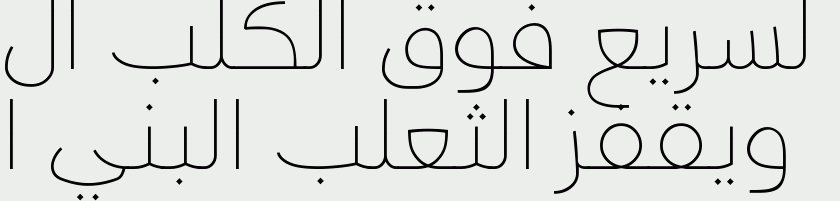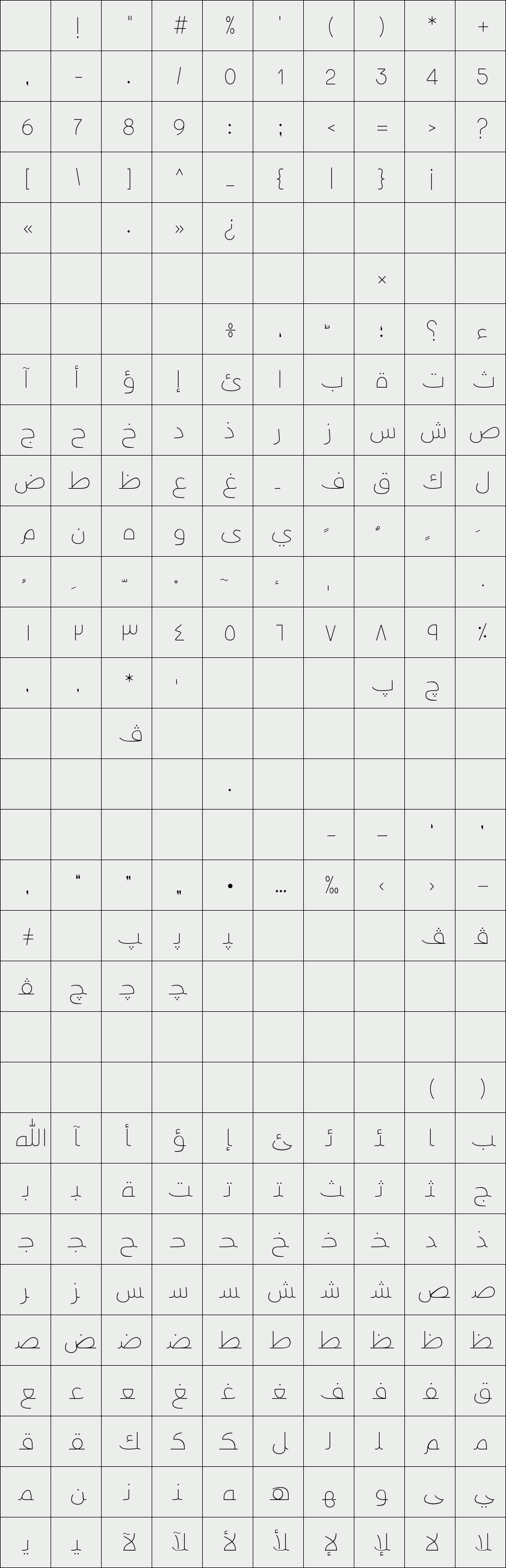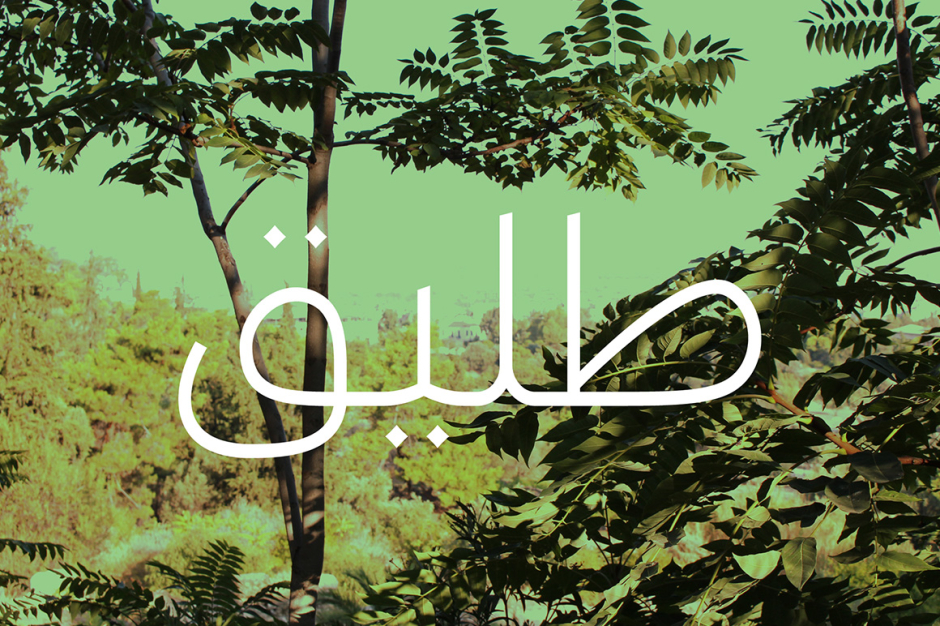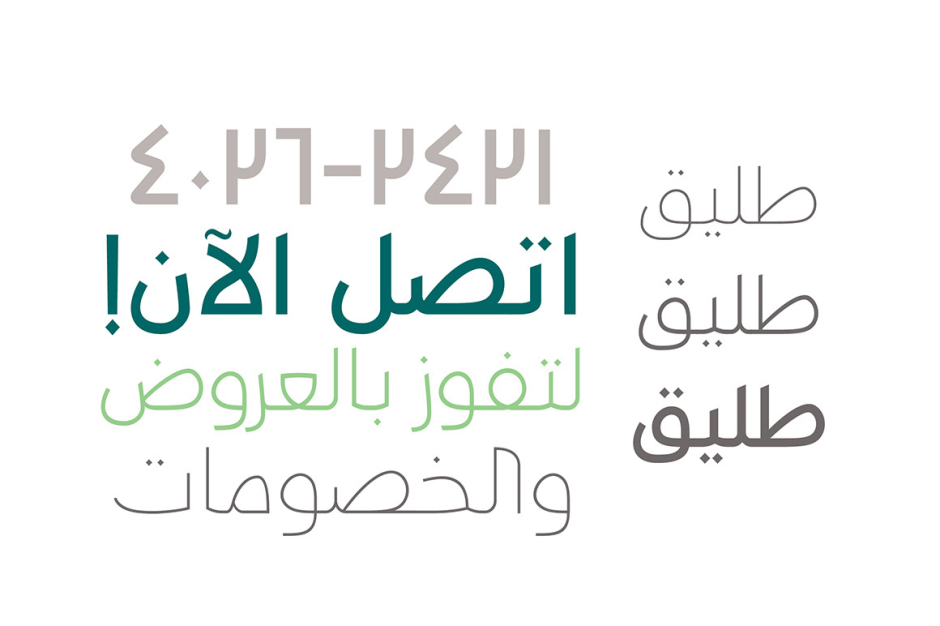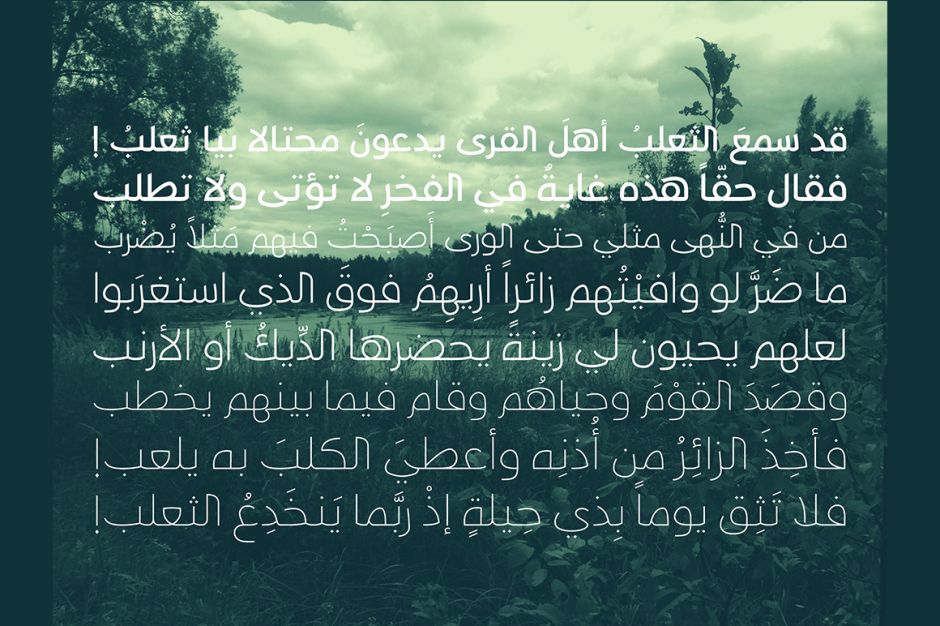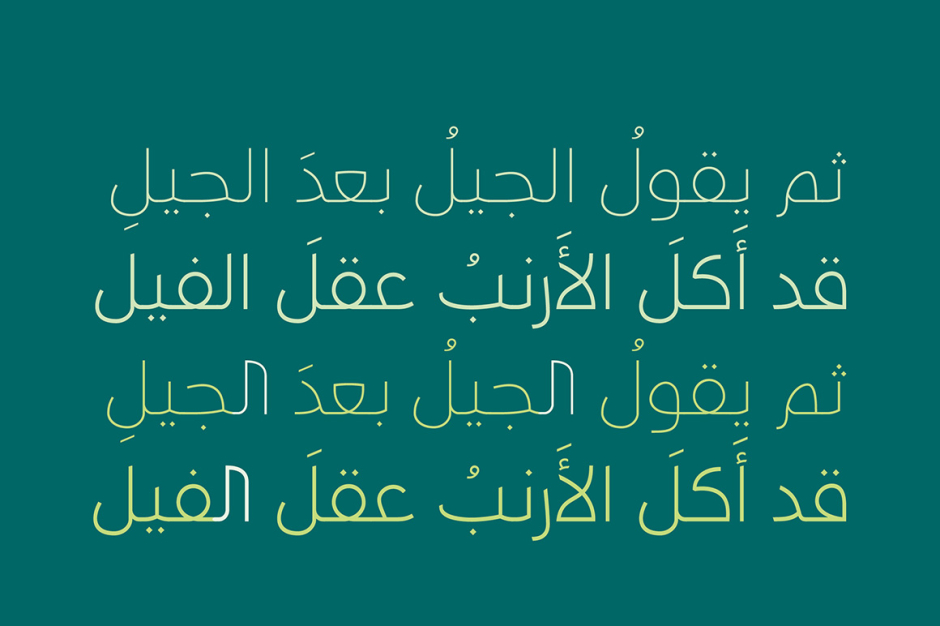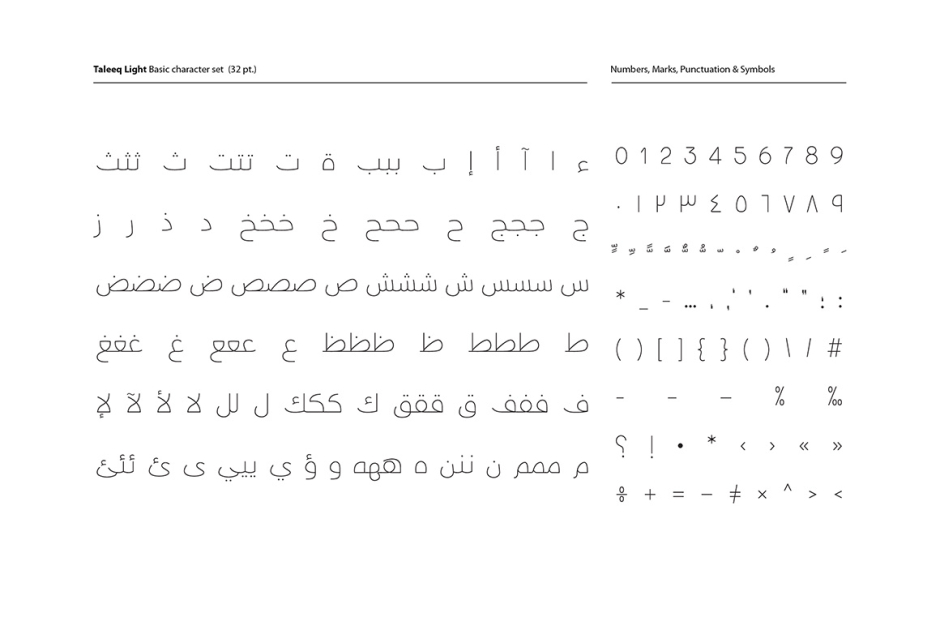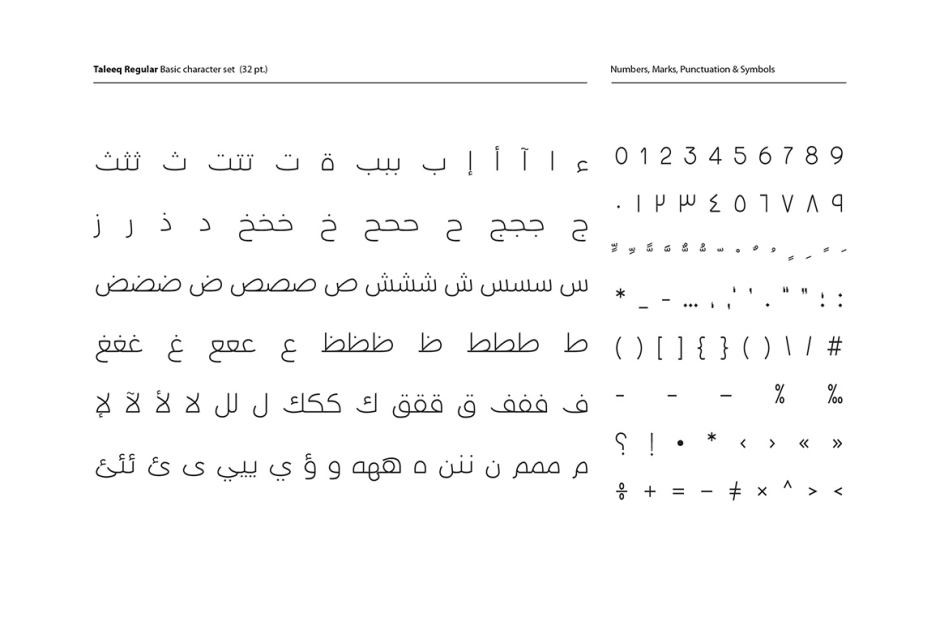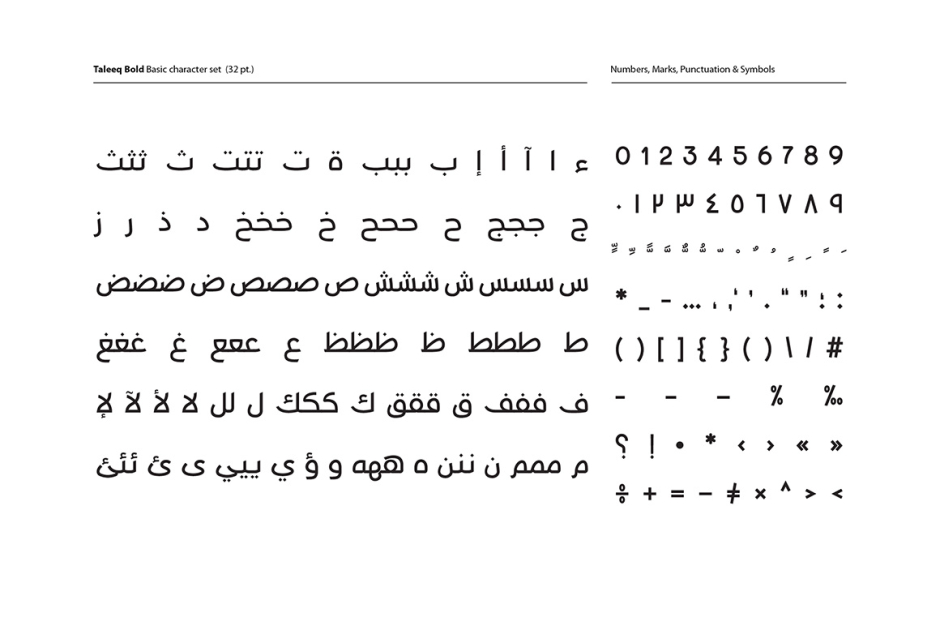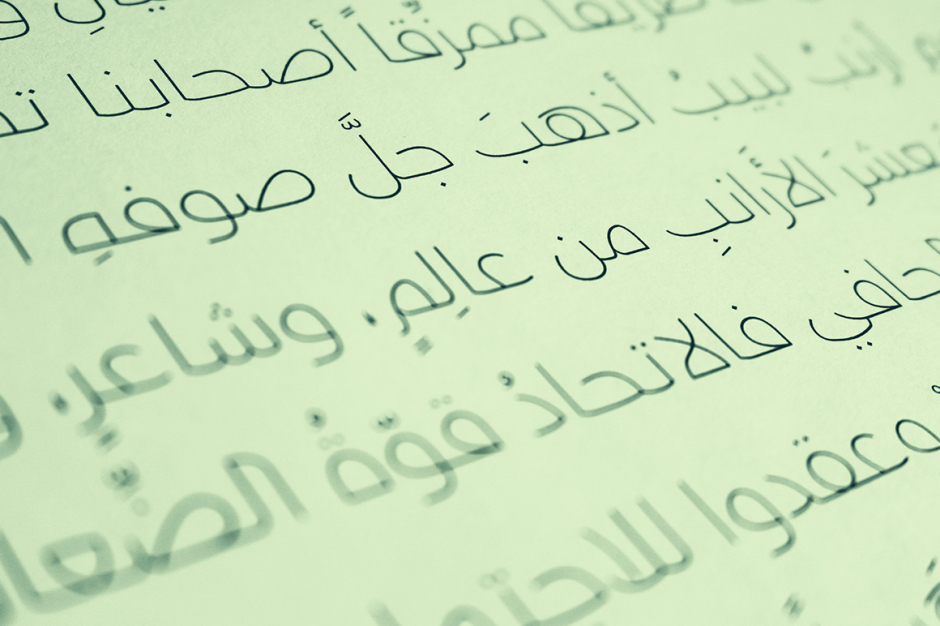
Taleeq
The word Taleeq is the Arabic for Fluent (or Freed). Taleeq is an Arabic typeface with a chirographic flavour. It consists of three weights and it suits various applications including publication, print and advertising.